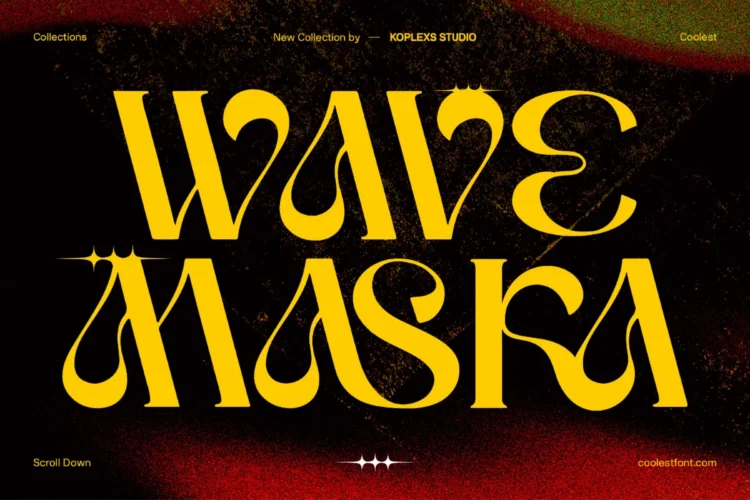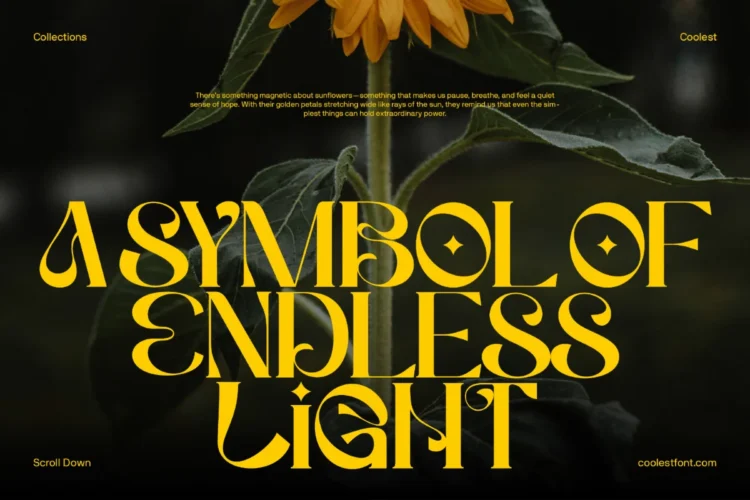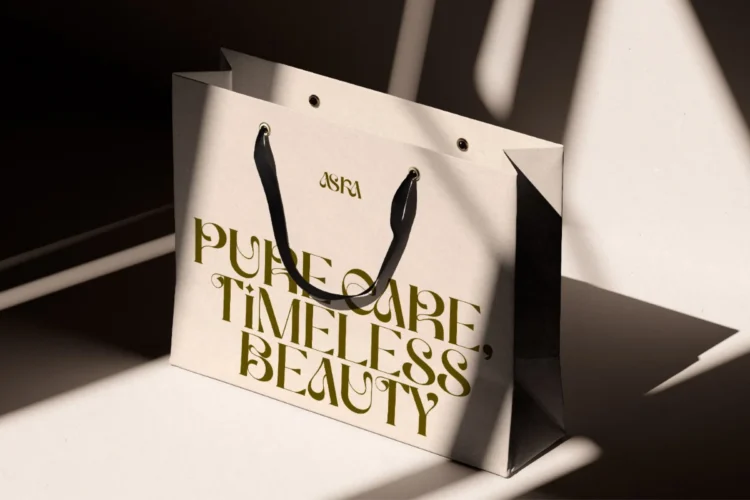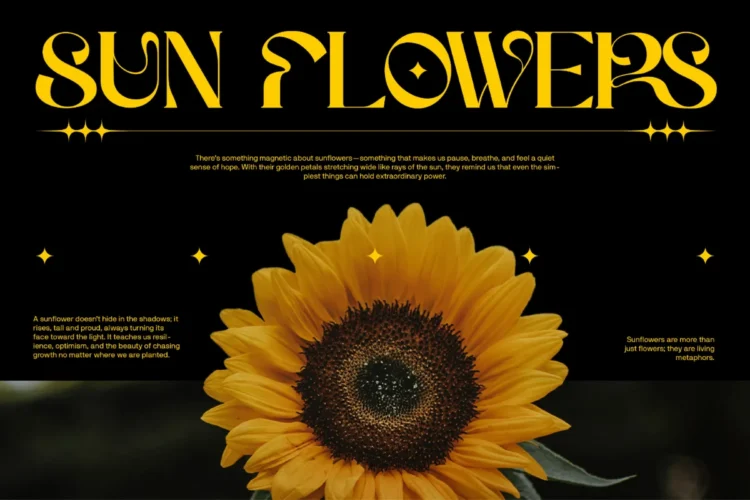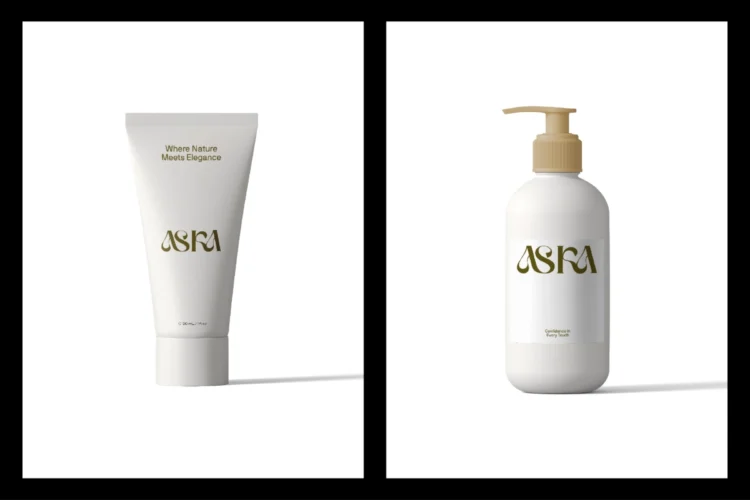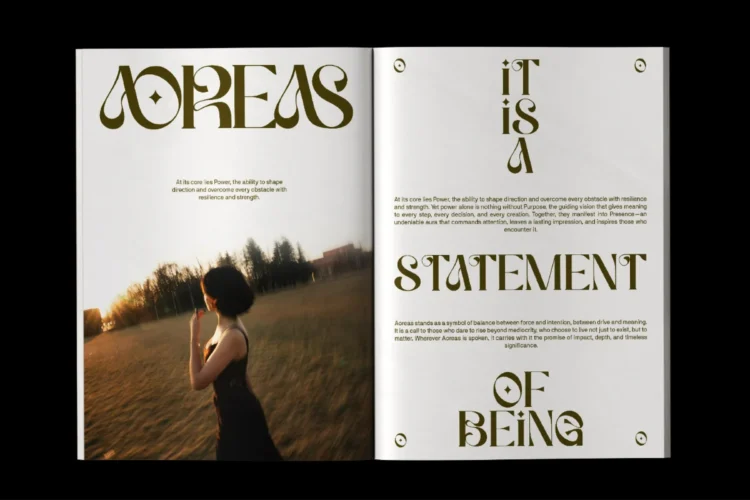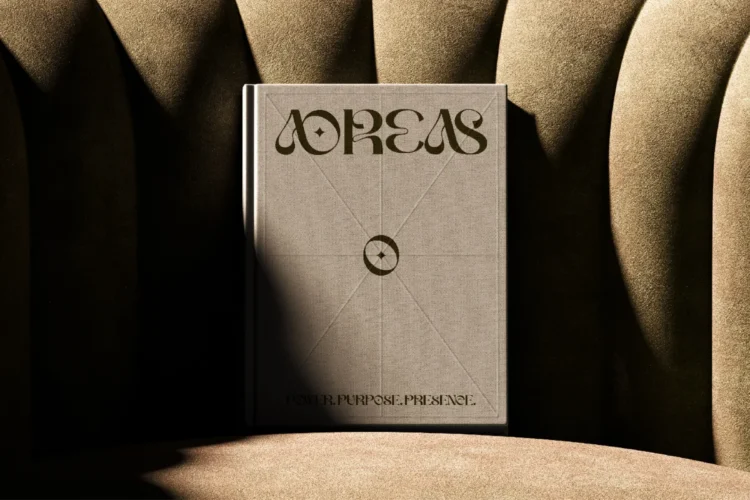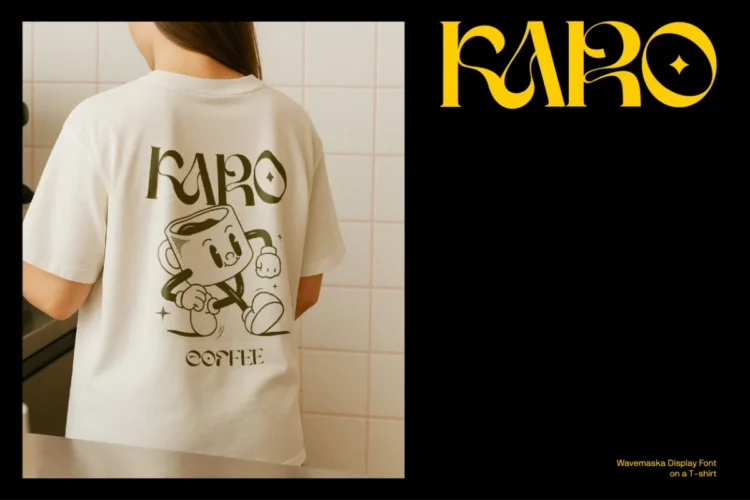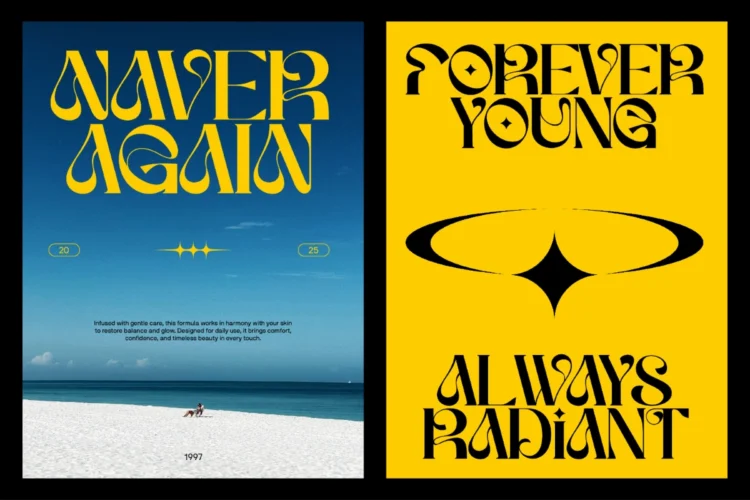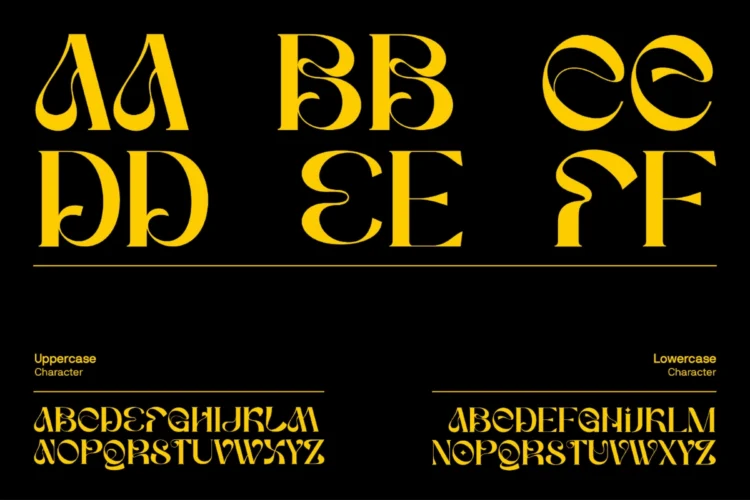
Wave Maska Font | Bold Decorative Display Serif for Branding and Editorial Design
Wave Maska Font is a decorative display serif created for designs that deserve attention. Its dramatic letterforms combine elegant curves, sharp contrast, fluid details, and expressive shapes to create a distinctive visual personality.
Inspired by retro typography, psychedelic art, fashion editorials, and Art Nouveau aesthetics, Wave Maska feels artistic, luxurious, and slightly unconventional. Every character is designed to become part of the composition, making simple words look like custom lettering.
This font works especially well at large sizes, where its sculptural curves, unusual counters, decorative terminals, and flowing details can be fully appreciated. Use it to create memorable headlines, stylish logos, bold packaging, editorial covers, or statement graphics that instantly stand apart.
Perfect For These Design Styles
- Logo and brand identity
- Fashion and beauty branding
- Editorial headlines
- Magazine and book covers
- Posters and advertising
- Product packaging
- Cosmetic and skincare labels
- Boutique and luxury branding
- T-shirt and merchandise designs
- Album and music artwork
- Website hero titles
- Social media graphics
- Invitations and event materials
- Café and lifestyle branding
- Creative typography projects
Wave Maska Font is an excellent choice for designers who want typography that feels expressive, premium, and unforgettable. Pair it with a clean sans serif for body text to create a balanced design with a powerful visual hierarchy.